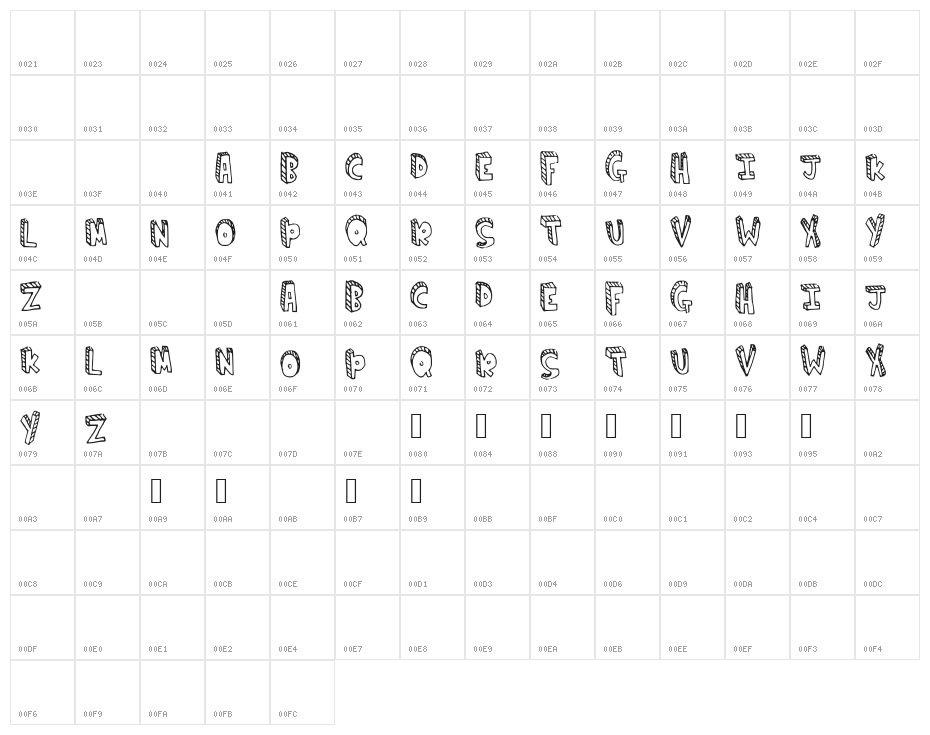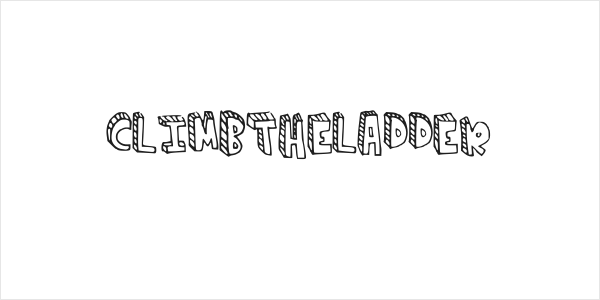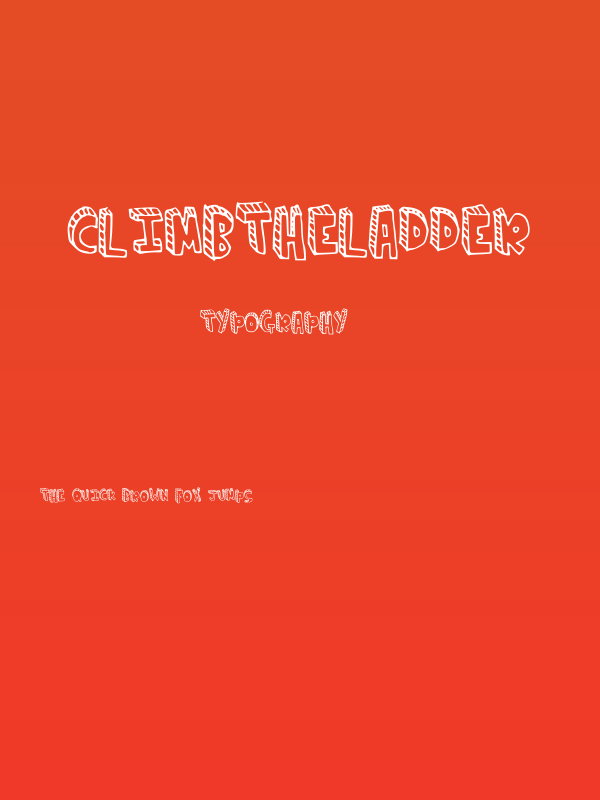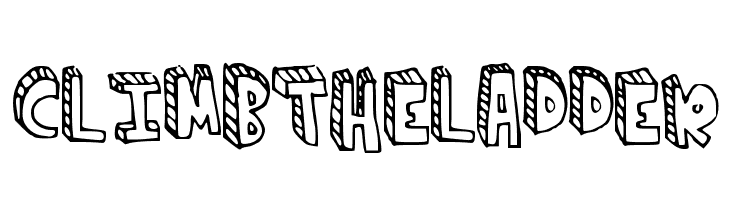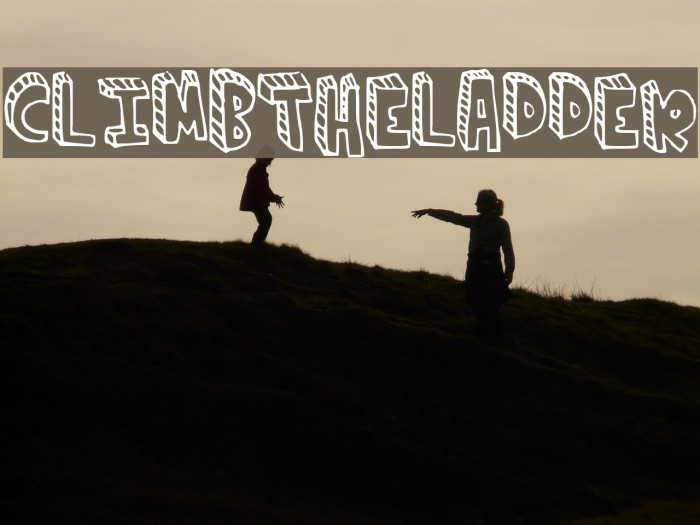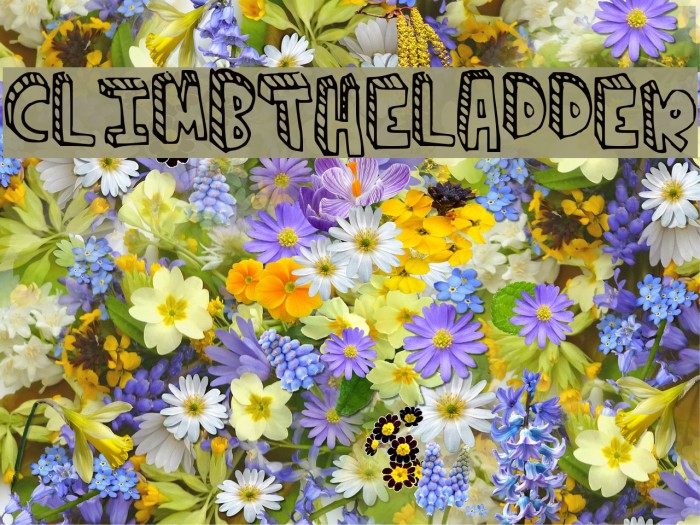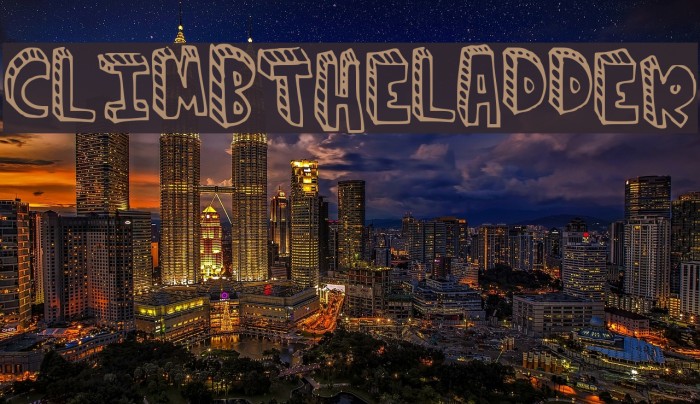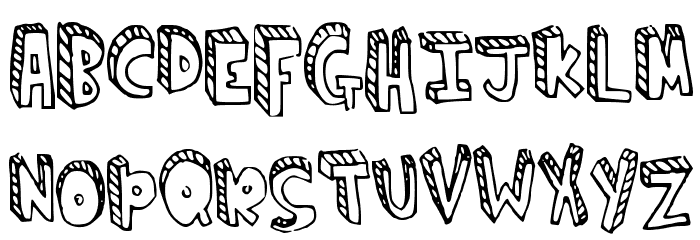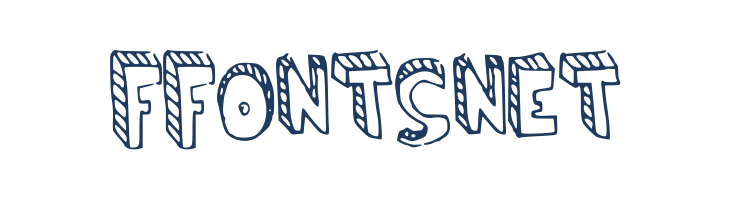
climbtheladder Font
This font features a playful and bold 3D effect with a hand-drawn style. Each letter is outlined with a thick black line, and the interior is filled with diagonal stripes, giving it a textured appearance. The letters have a whimsical, cartoon-like quality, making them stand out with a sense of fun and creativity. The overall design is consistent across both uppercase and lowercase letters, maintaining a cohesive look. The font's unique style is ideal for projects that require a lively and engaging visual element.
| Overall Style | Playful, Cartoonish |
| Proposed Projects | Ideal for children's book covers, playful posters, comic strips, and creative branding. |